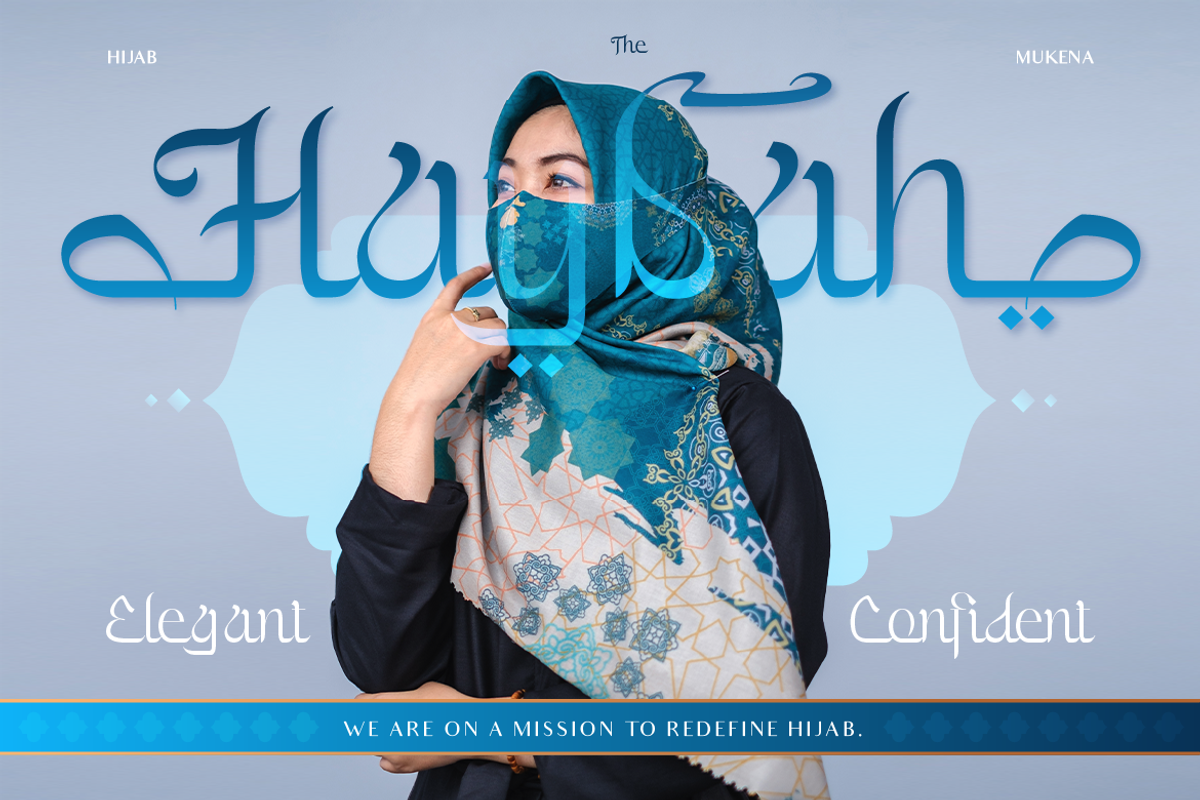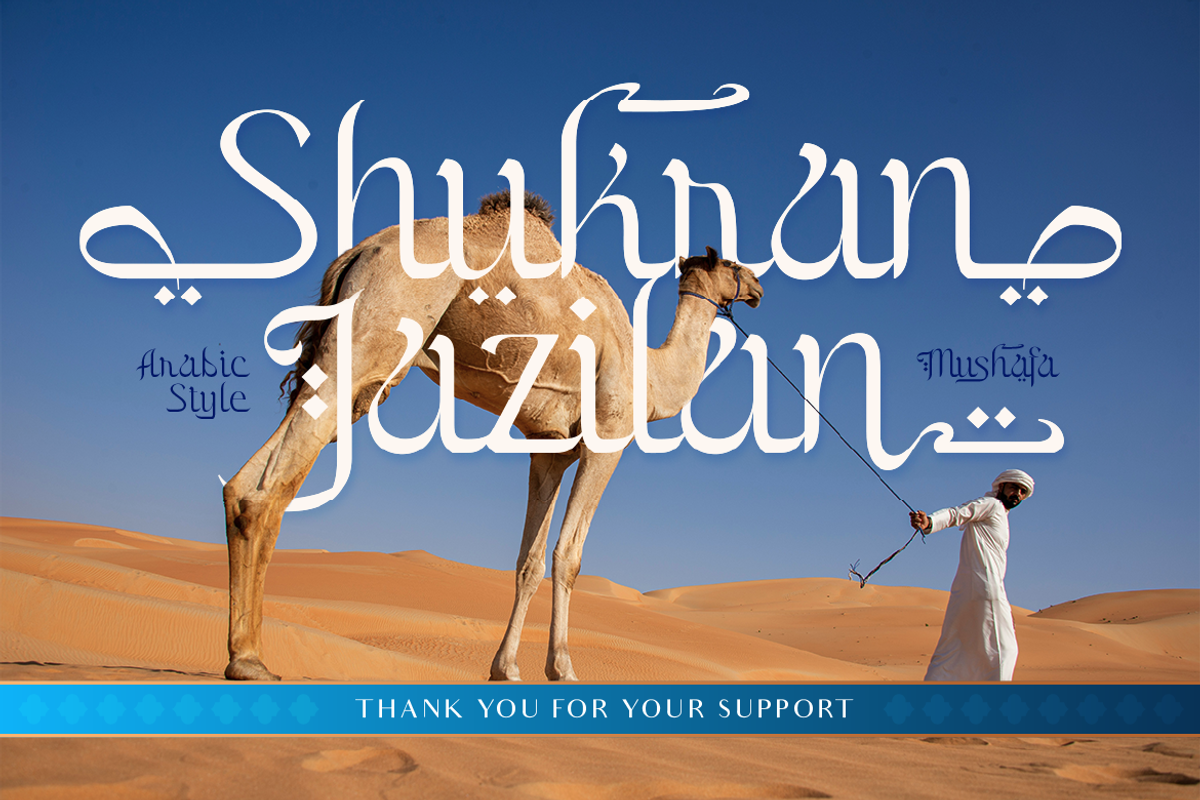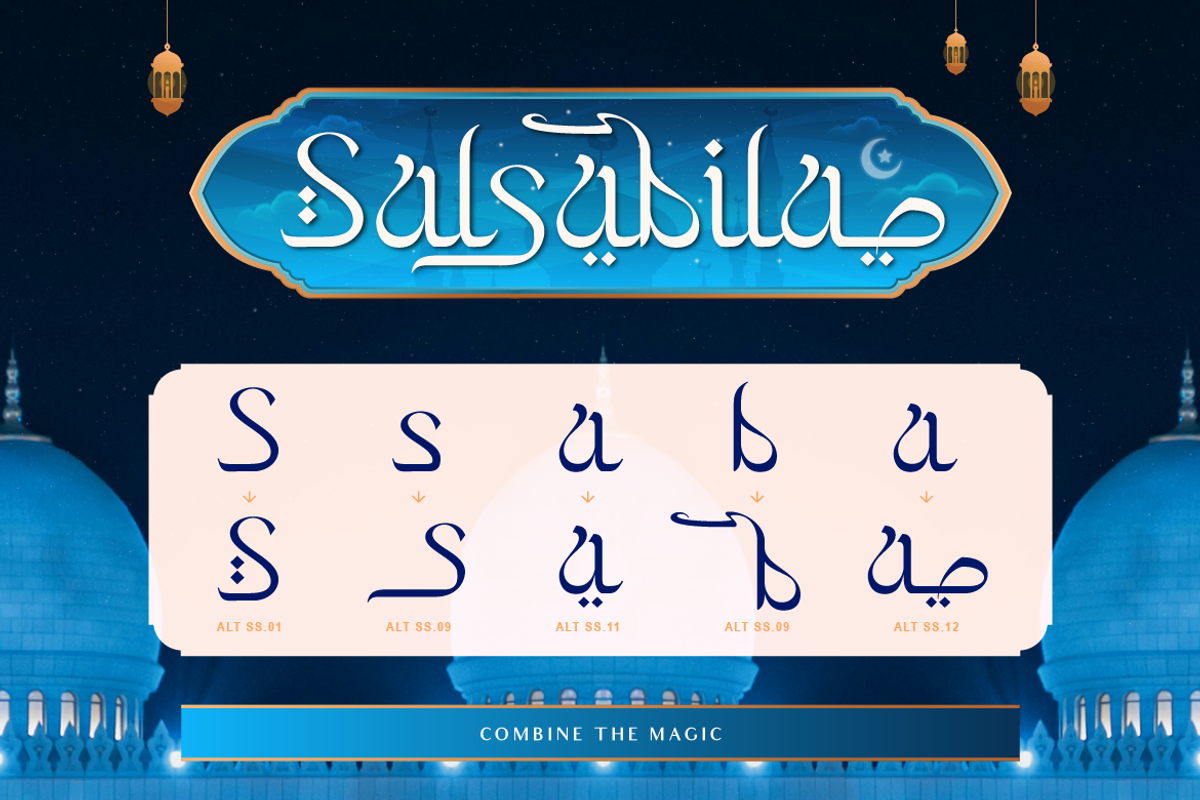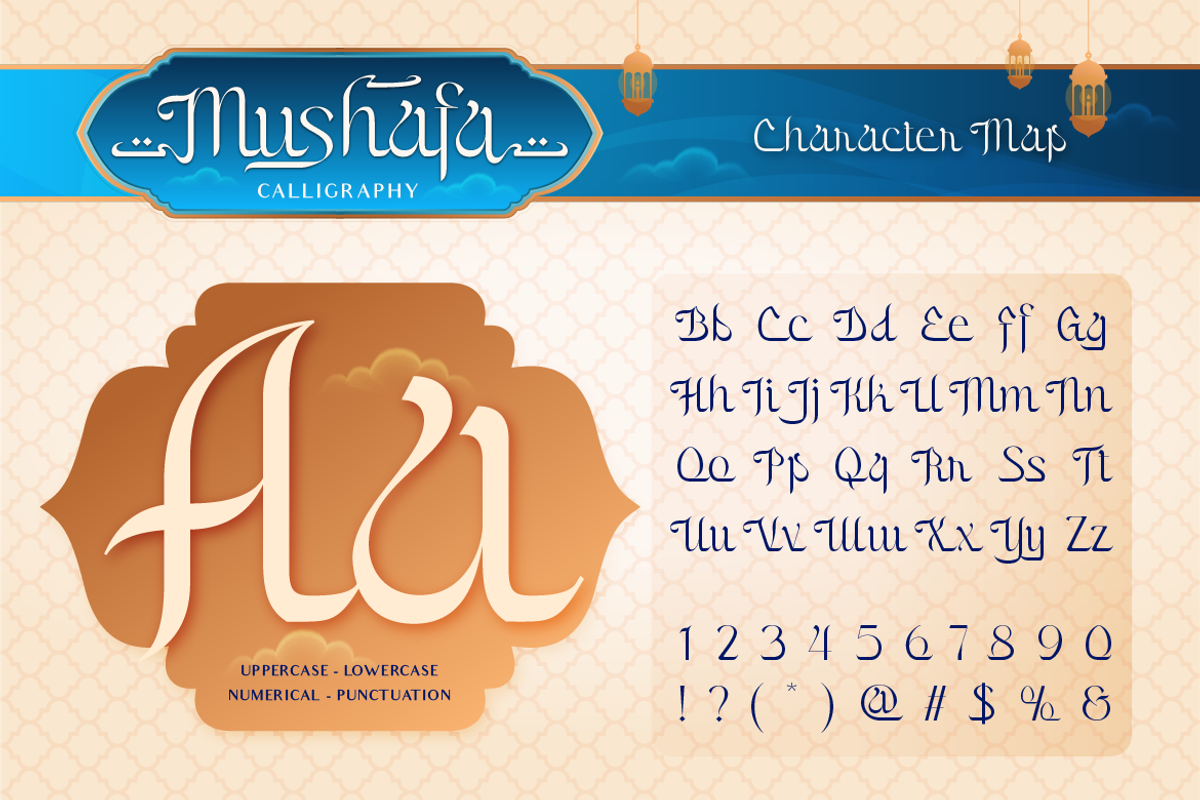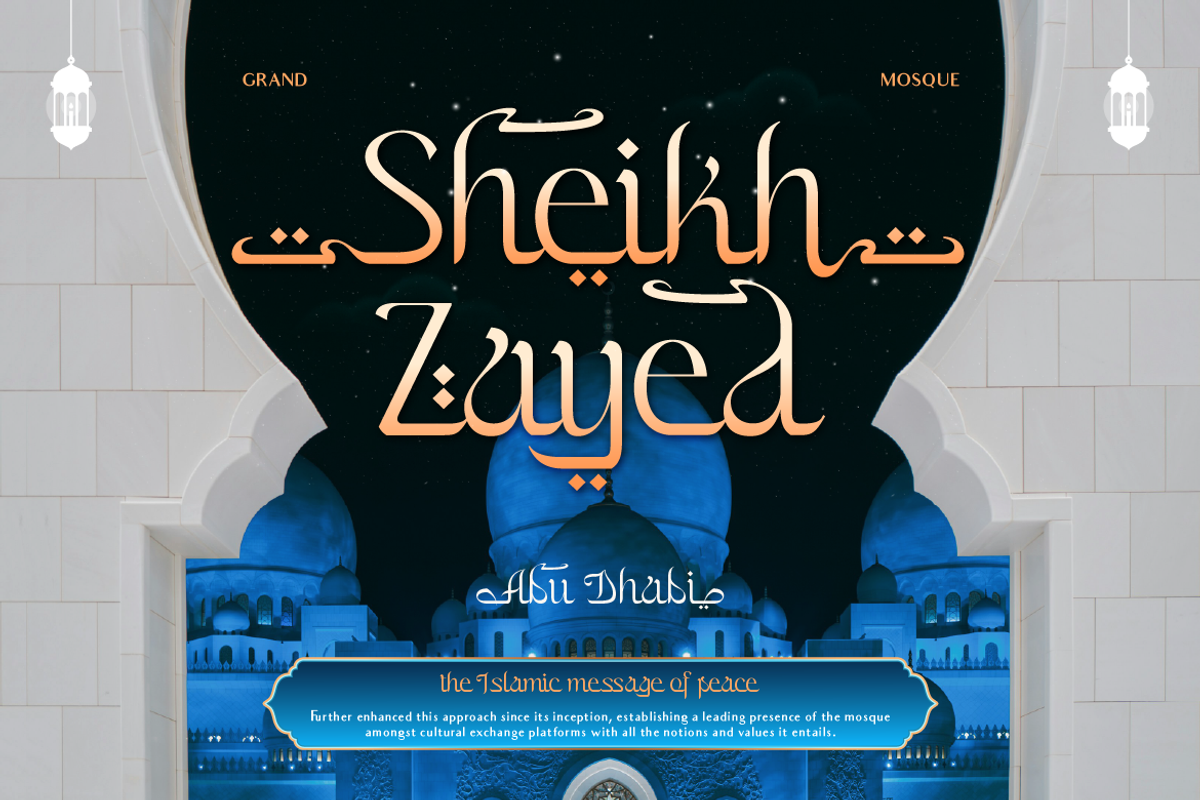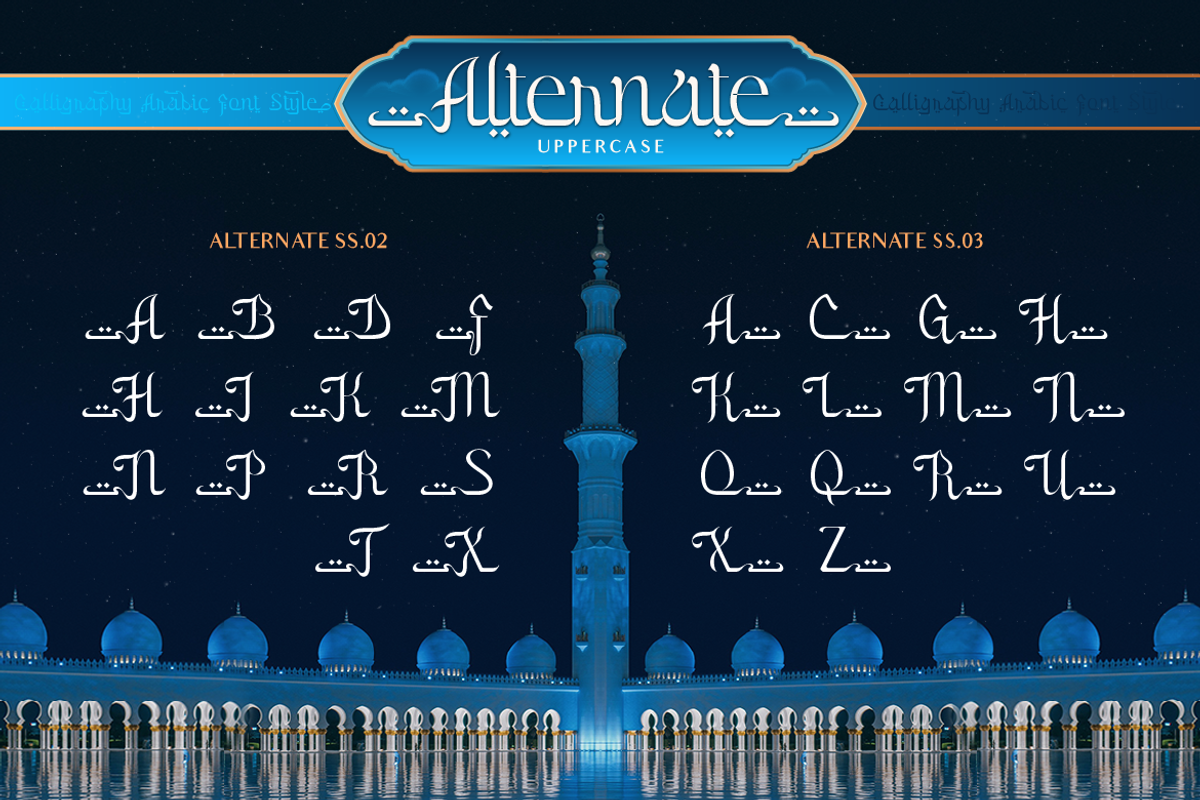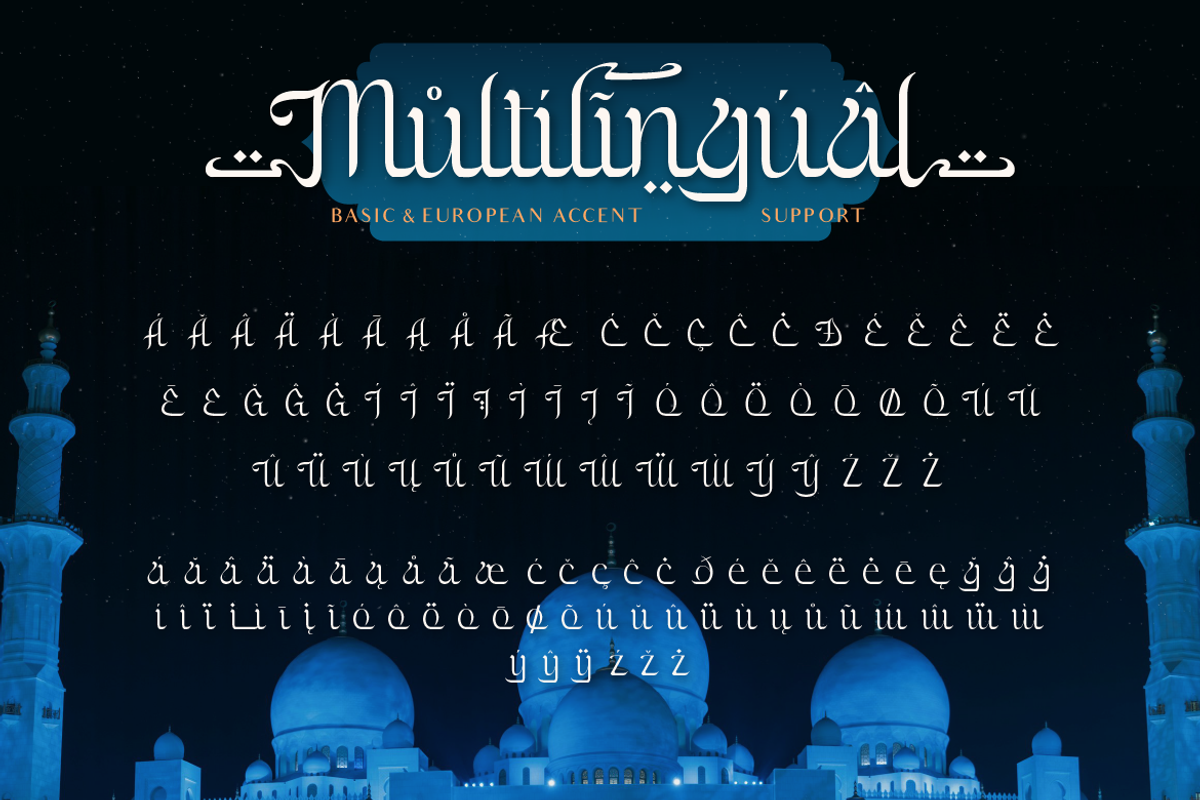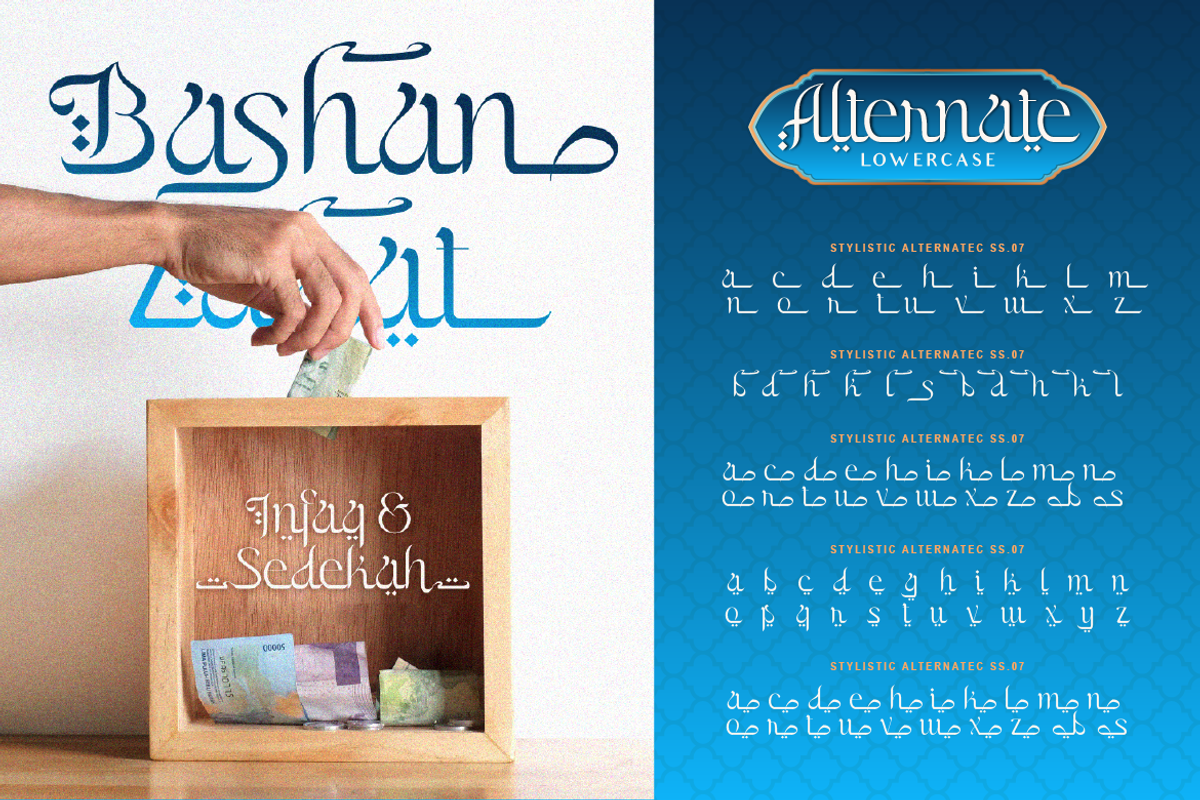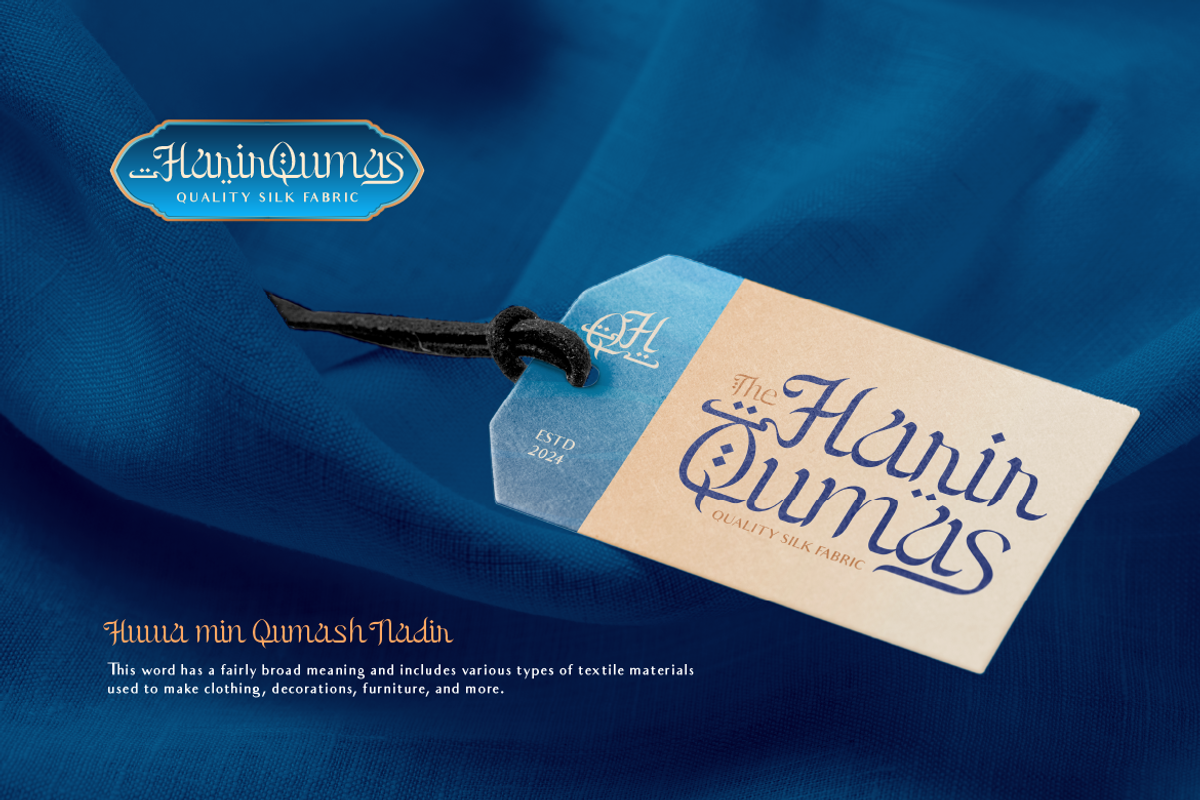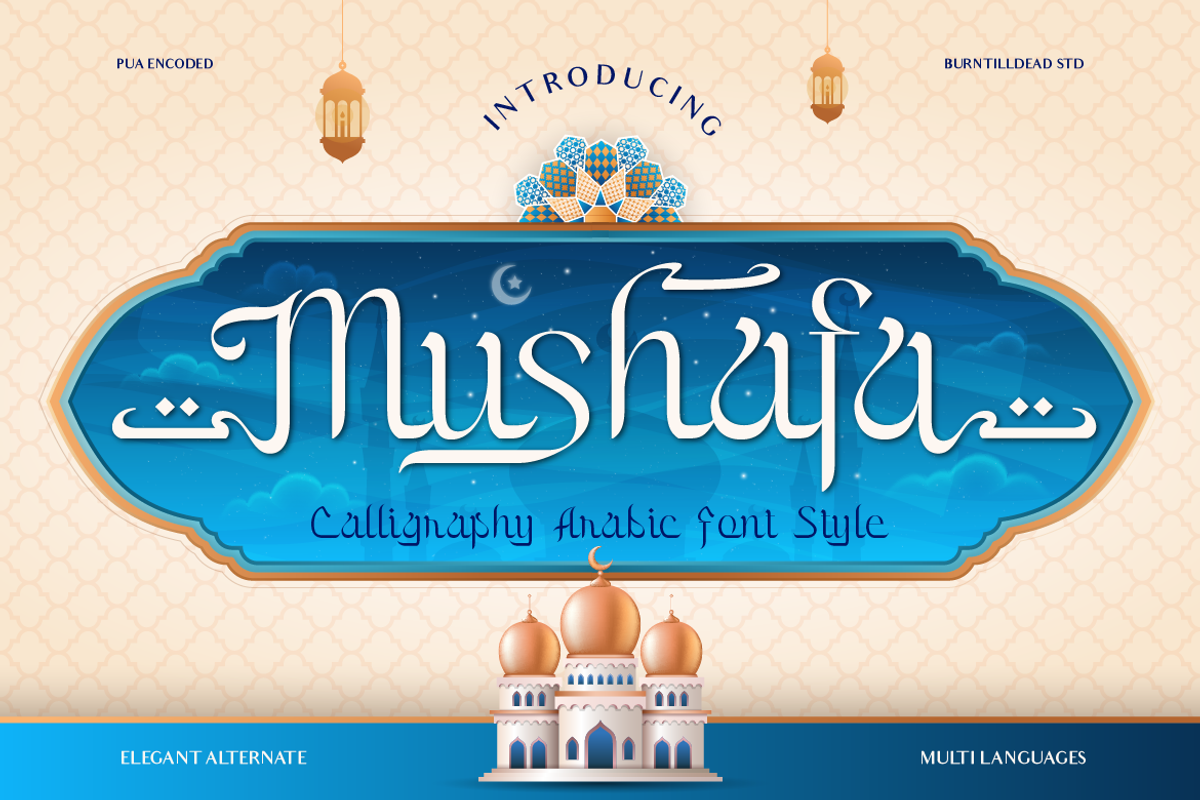
Mushafa
Introducing Mushafa, a stunning font that captures the beauty of Arabic calligraphy with touch of elegant and modern. Inspired by the intricate art of arabic writing, this font features graceful curves, delicate flourishes, and smooth slow. Included with alternates, it added cultural richness to the font. Mushafa comes in two styles: regular and outline. The multilingual support makes this font suitable for global use. Perfect for logos, invitations, social media graphics, posters, editorial design, product tags, and any design project that needs an Arabic or Islamic touch.
- A - Z set (Uppercase & Lowercase)